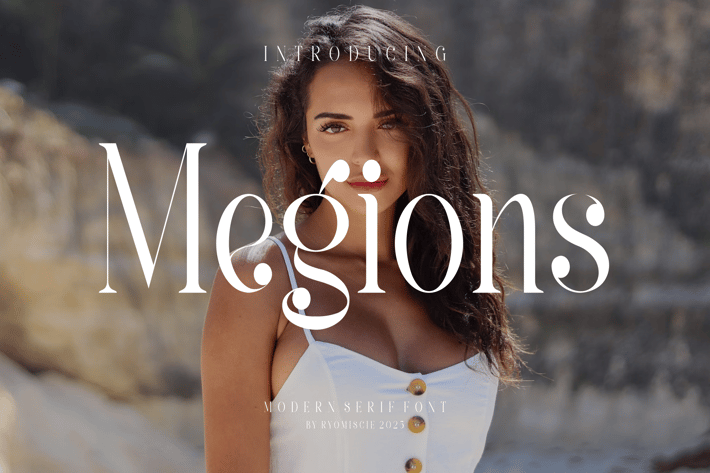
Megions - Modern Serif Font
Introducing our new product Megions Font - Modern Serif Font
Megions Font- Modern Font is a bold and authentic display font. The font is suitable for any branding project like logo,
t-shirt printing, esport, and many more. outstanding in a wide range of contexts.